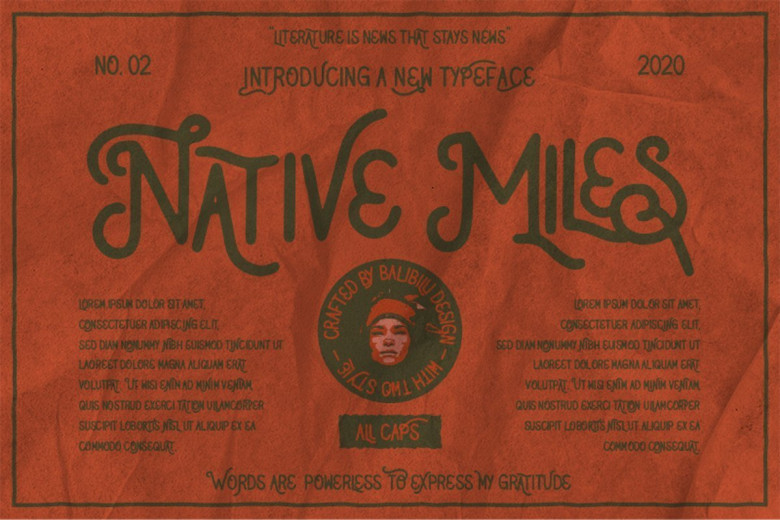
Native Miles Vintage Display Font
Native Miles is a vintage display sans serif font with 2 different styles, regular and outline. This font is dedicated to the designer and company that need a retro vintage style and unique text.
It’s a perfect fit for the modern botanical and nature theme, product packaging, tote bag, coffee, milk – or a stylish text overlay to any background image. It’s also could be good for both fun and semi-formal text.